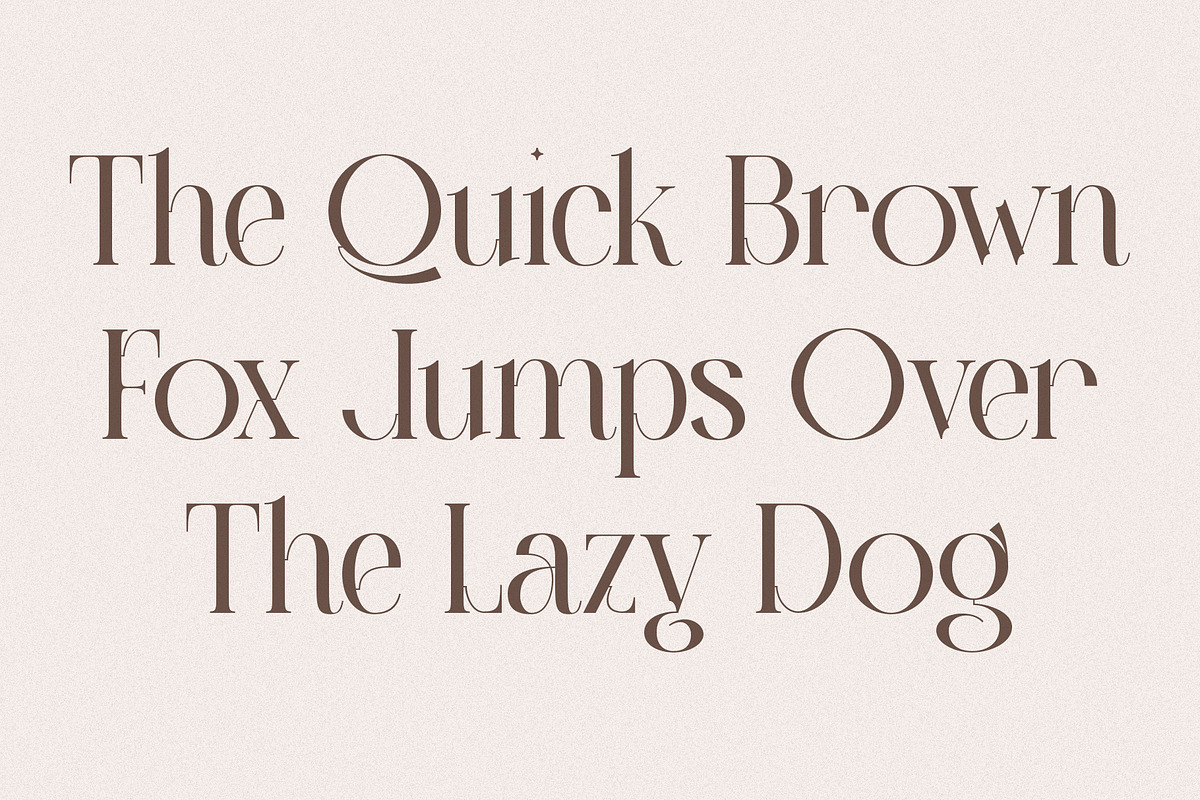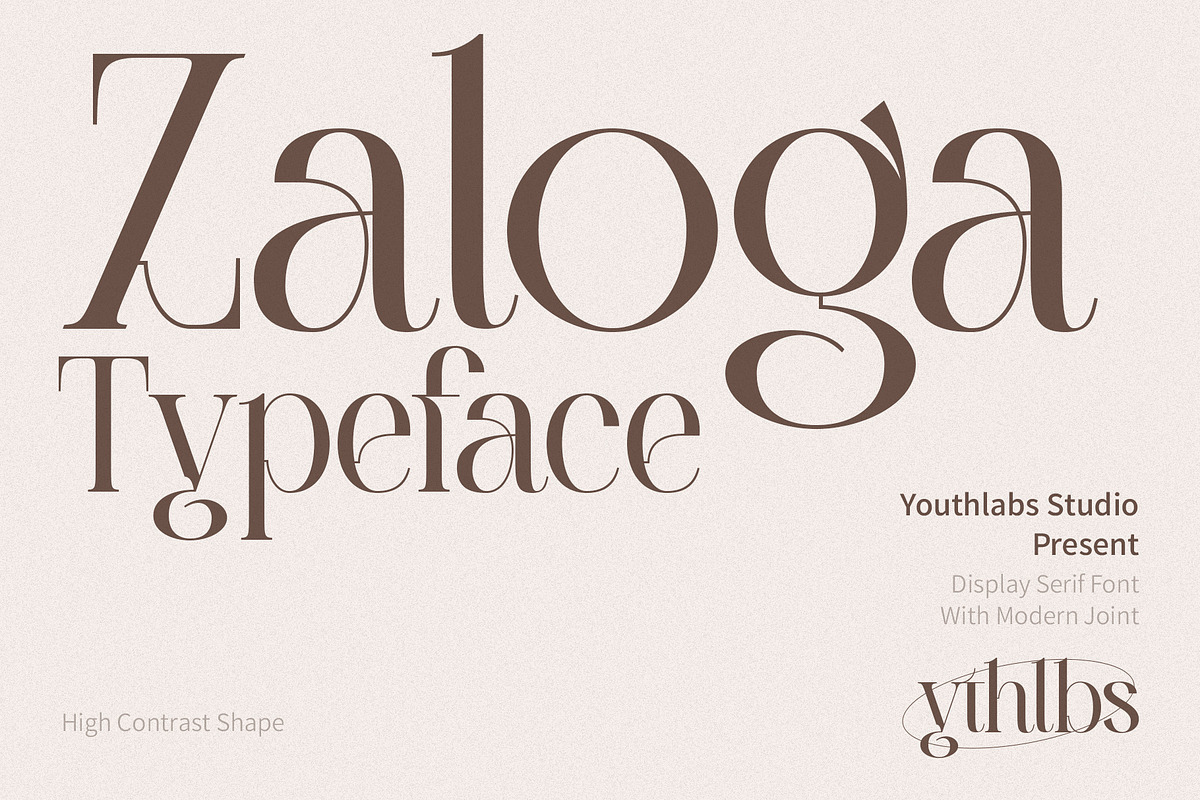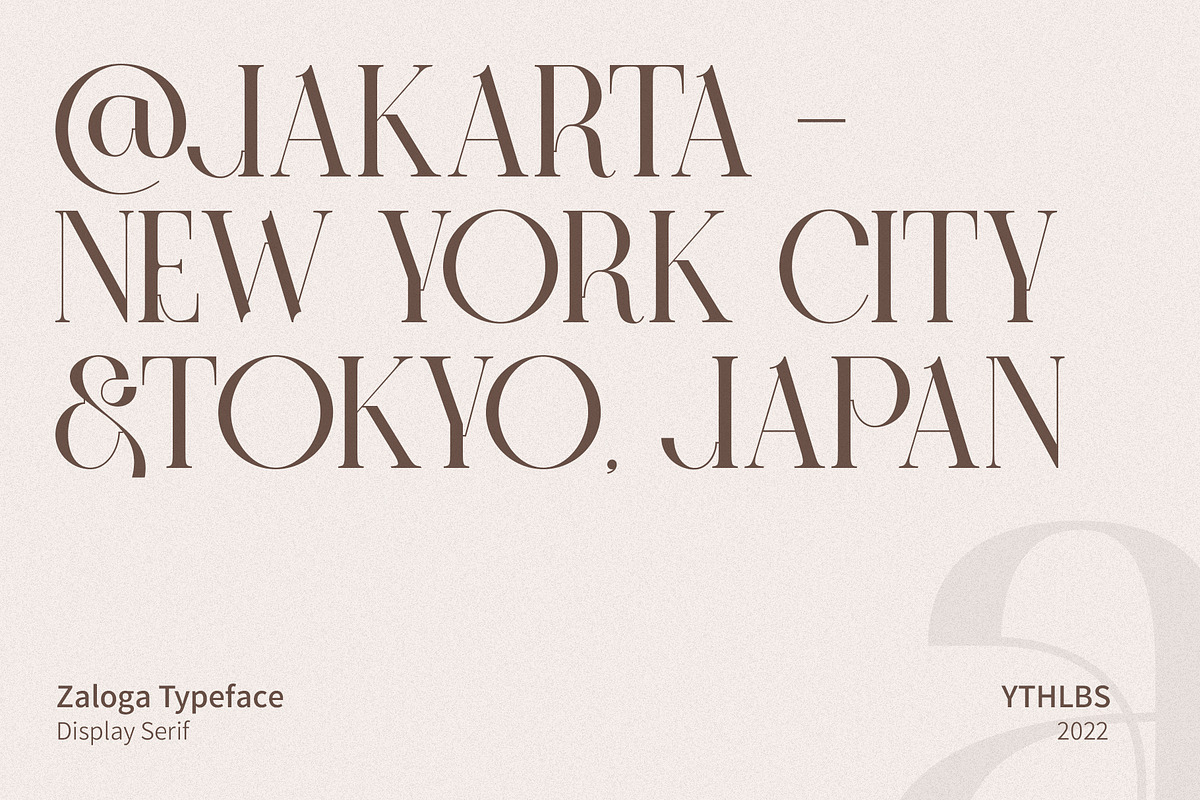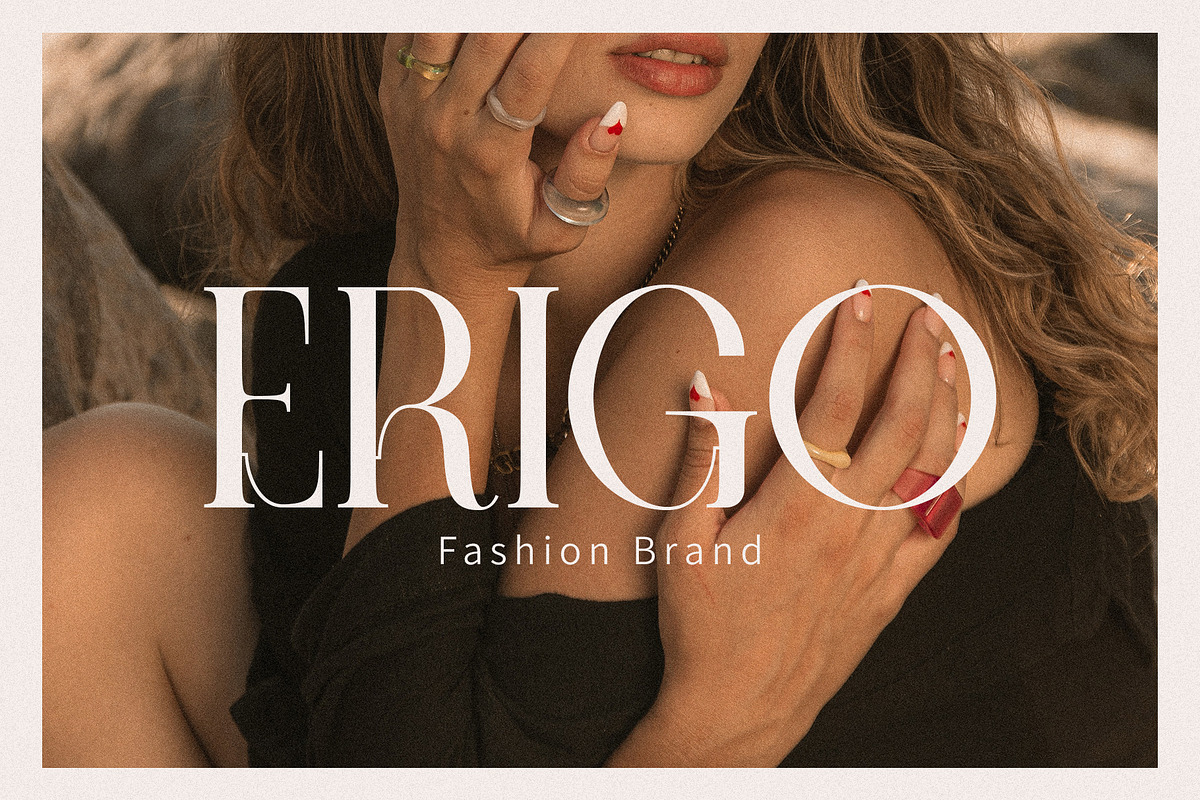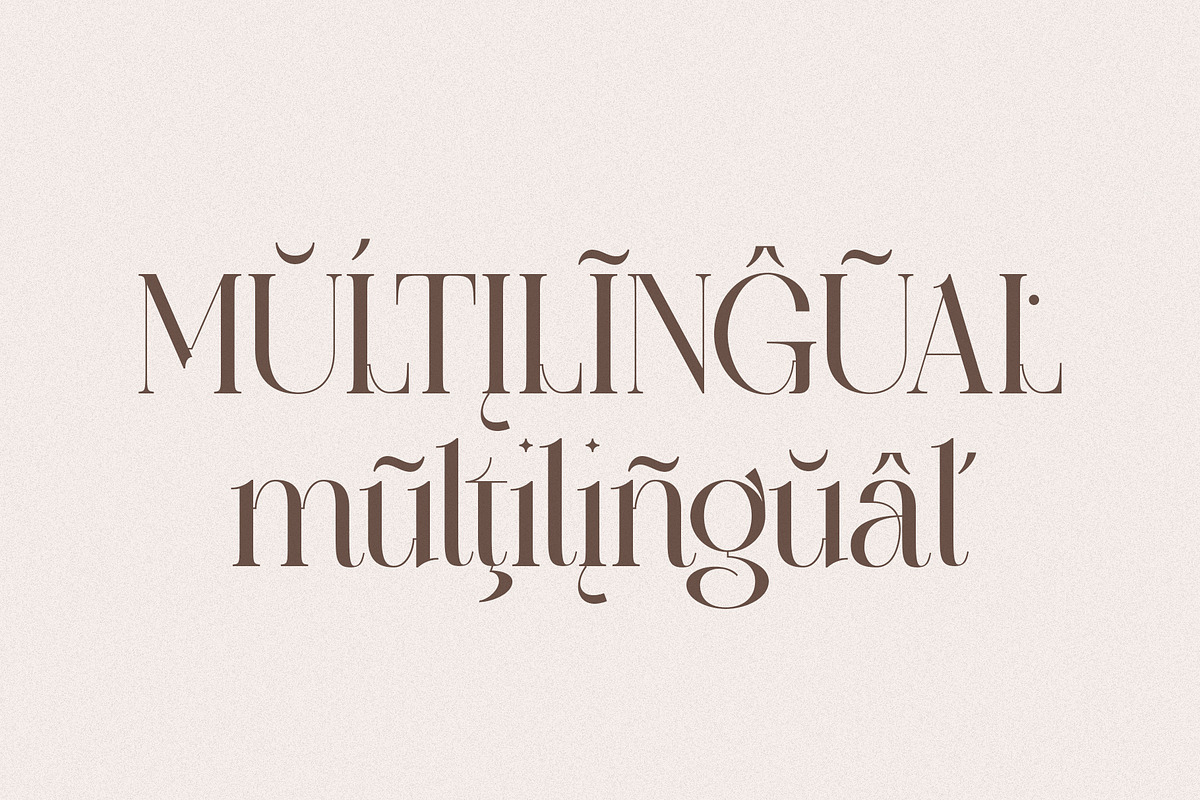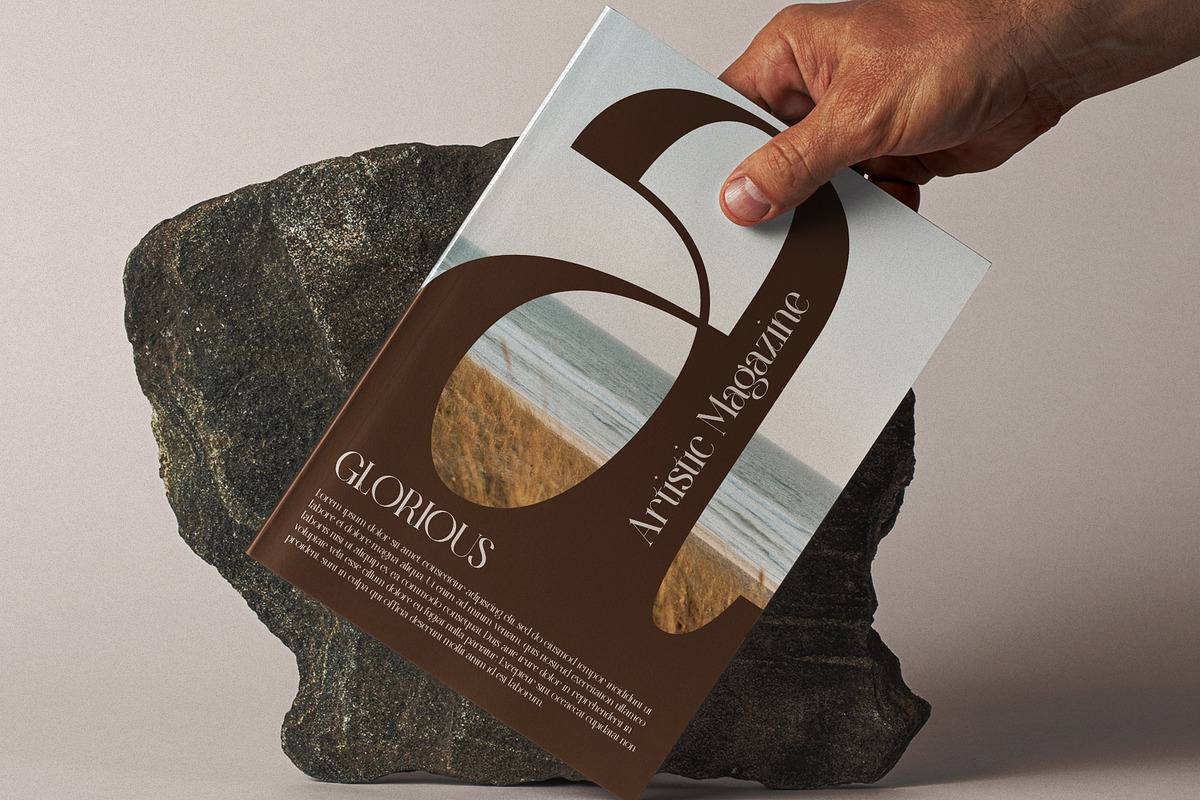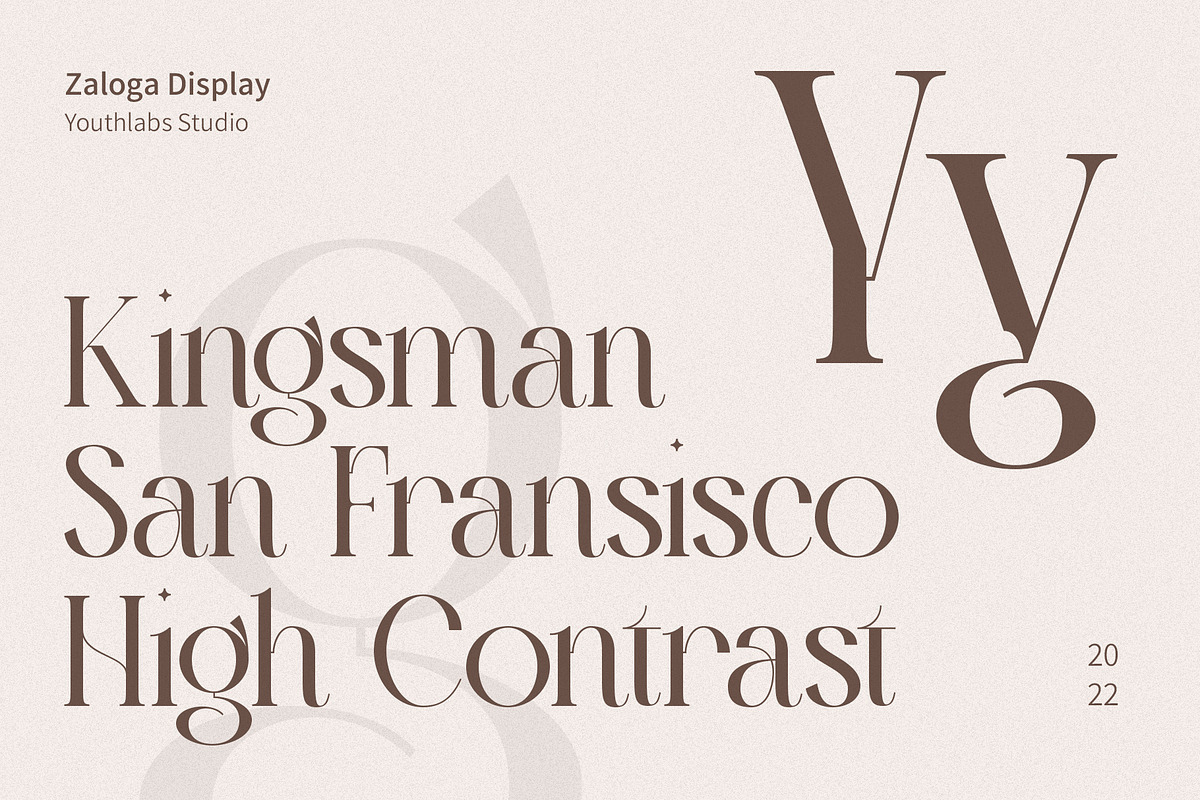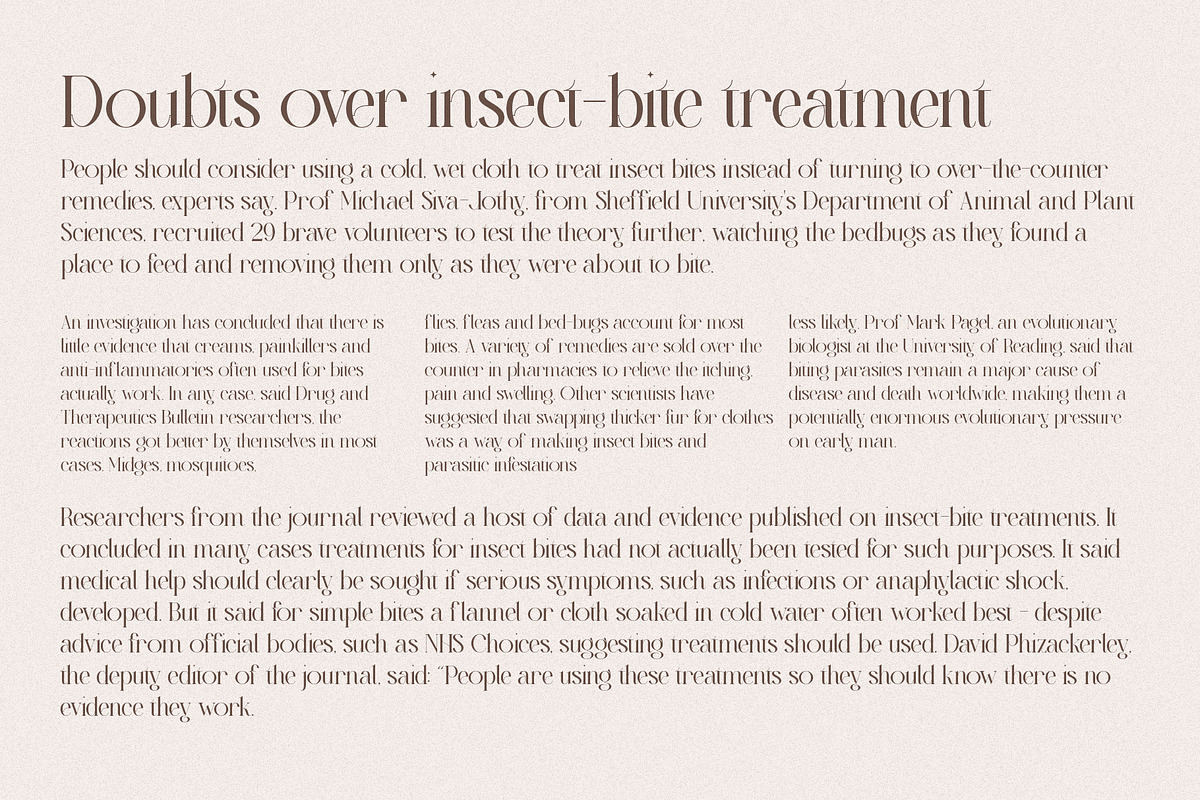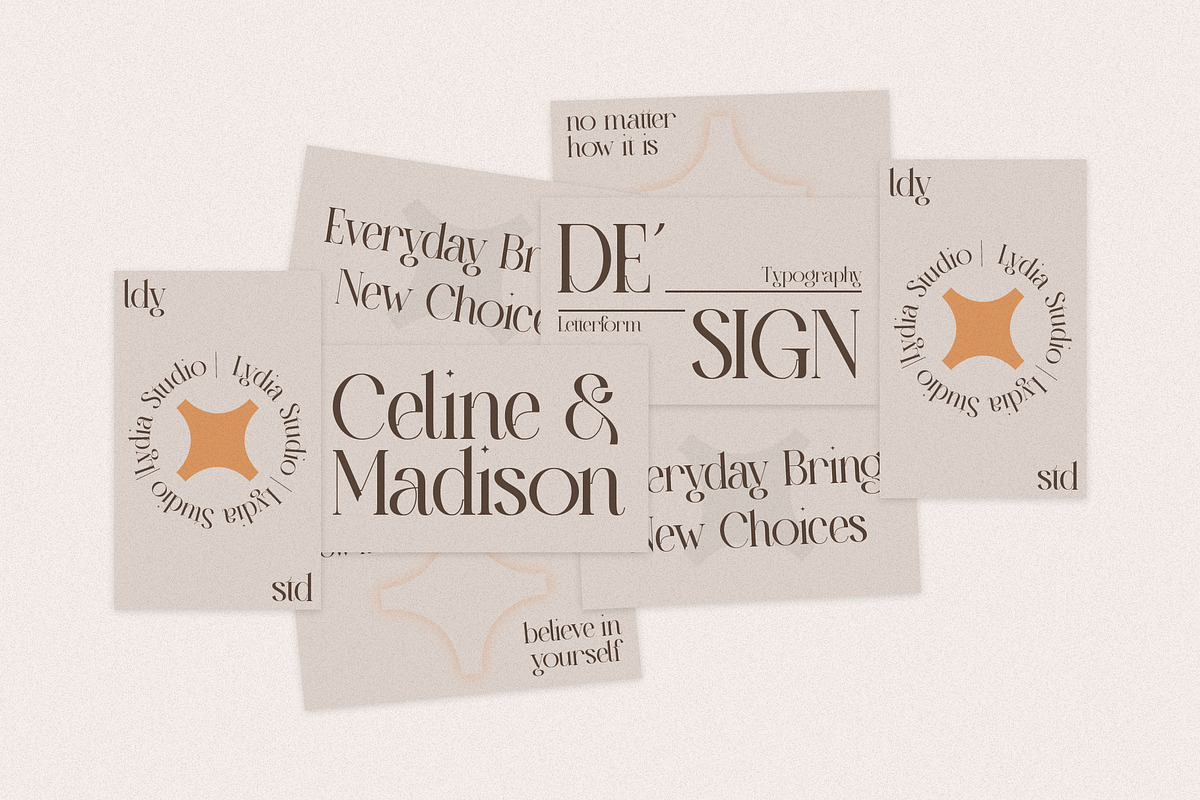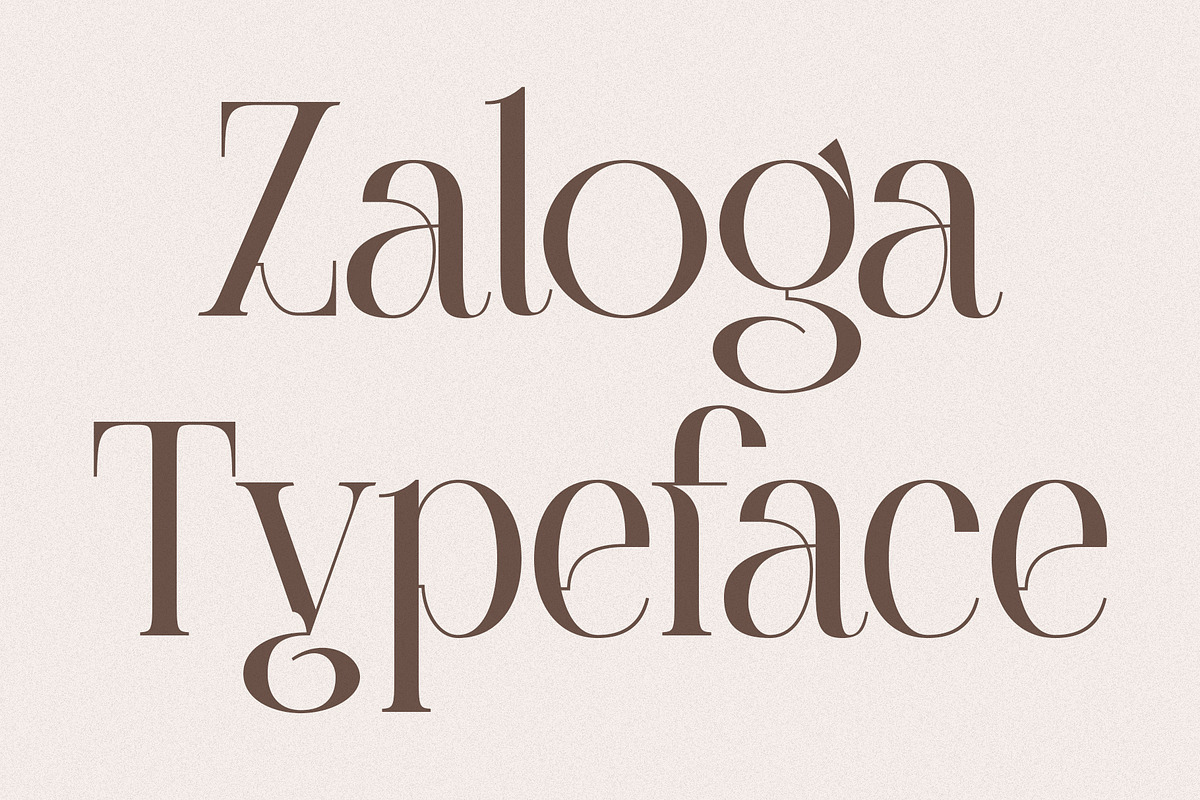
Zaloga Typeface - Display Serif
Introducing ZALOGA Display Serif Font. ZALOGA is a serif font that gives modern touch on your design. It looks so good for fashion brand logo. With different style of shape, ZALOGA will make it easier for you to use various design functions, be it for logos, typography, magazine, fashion, branding, advertising, and more.